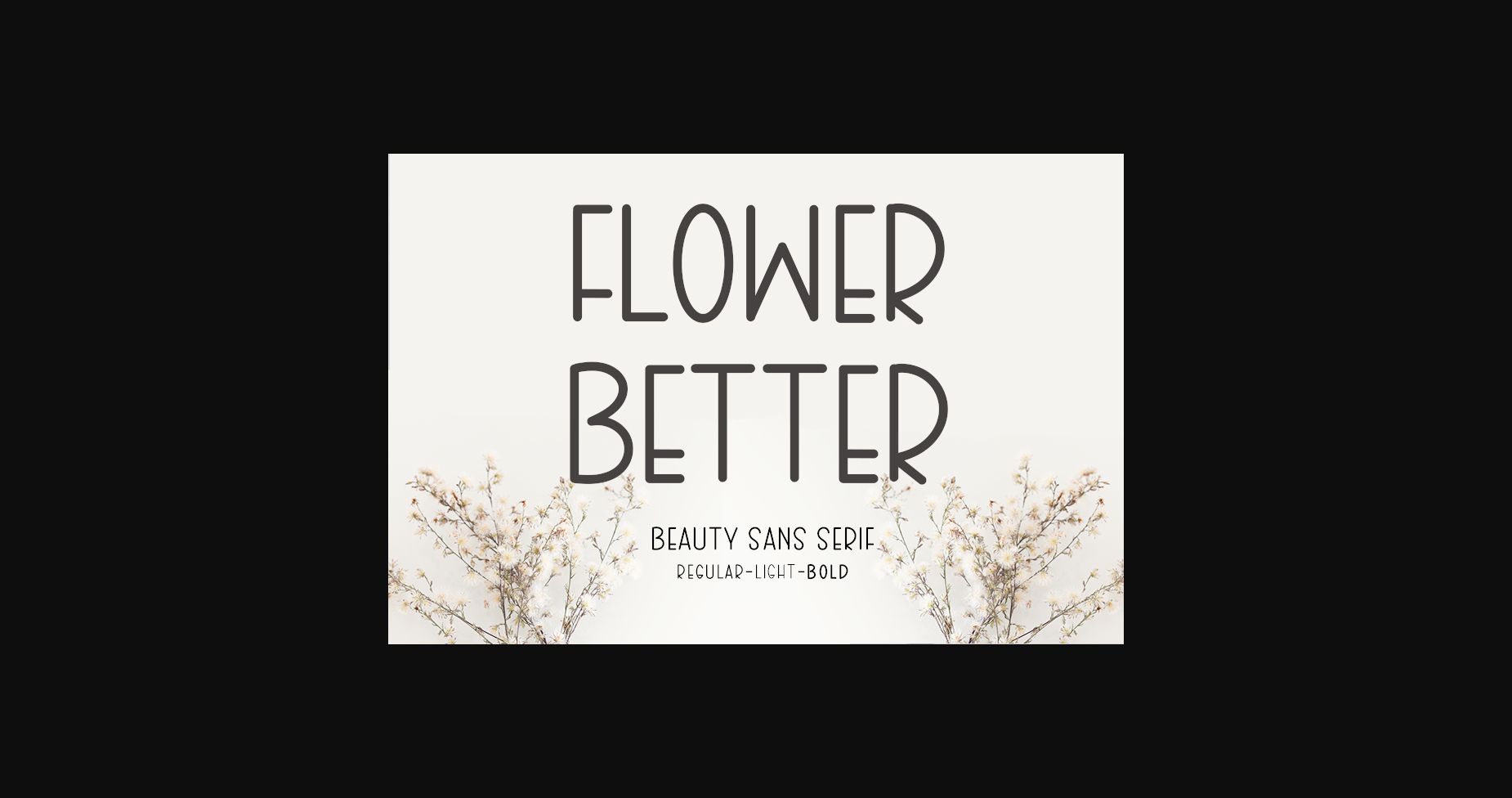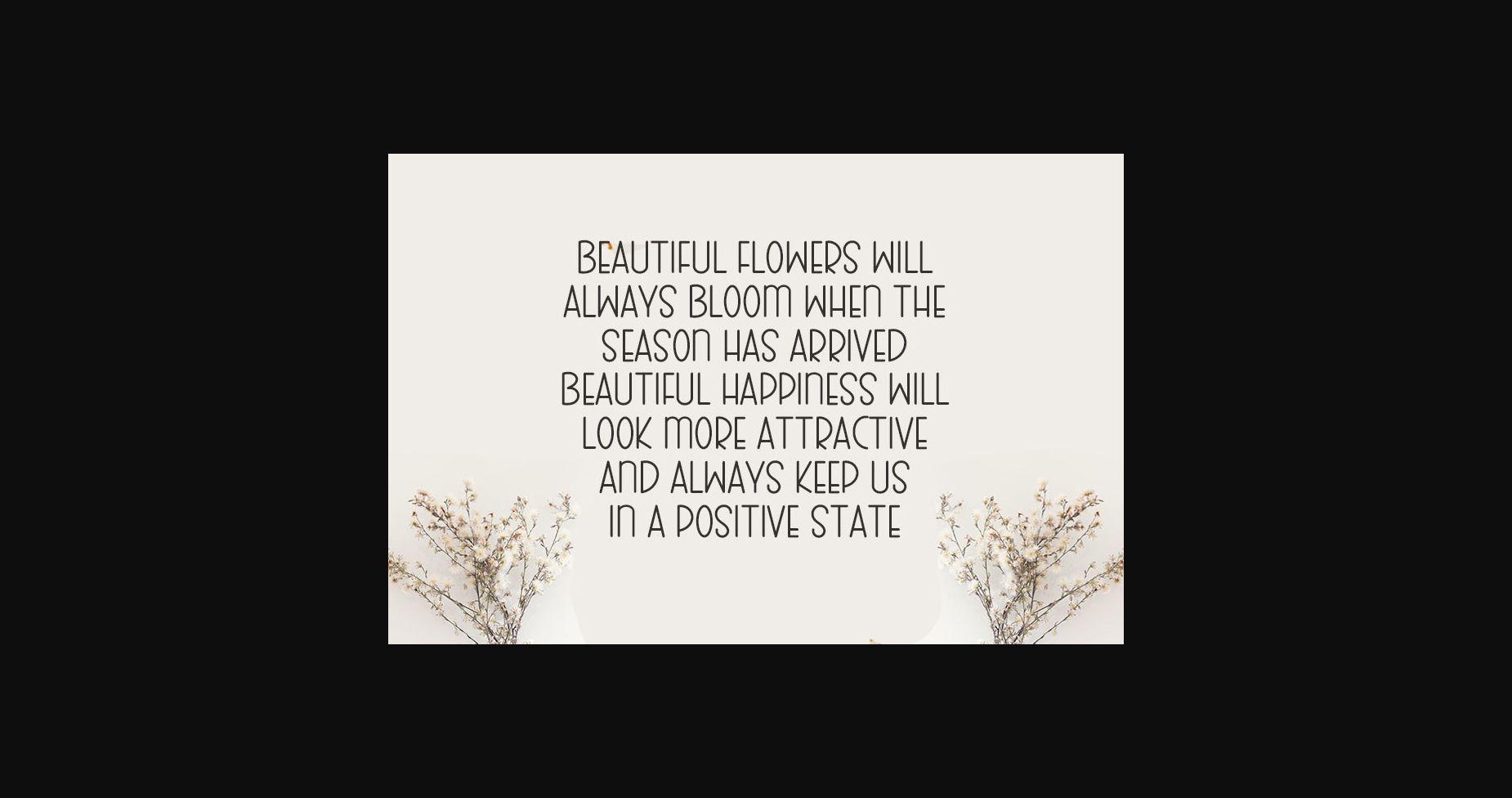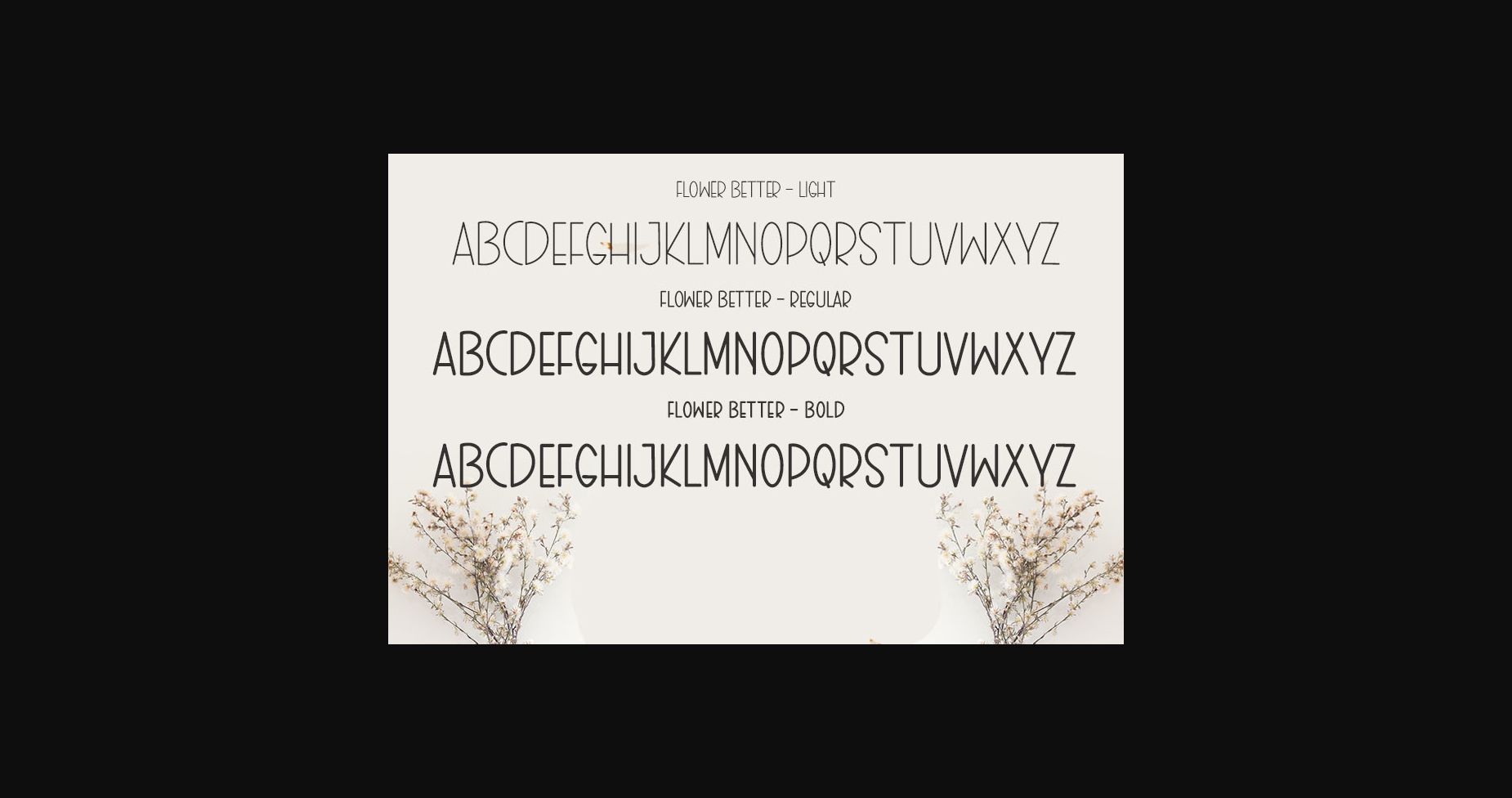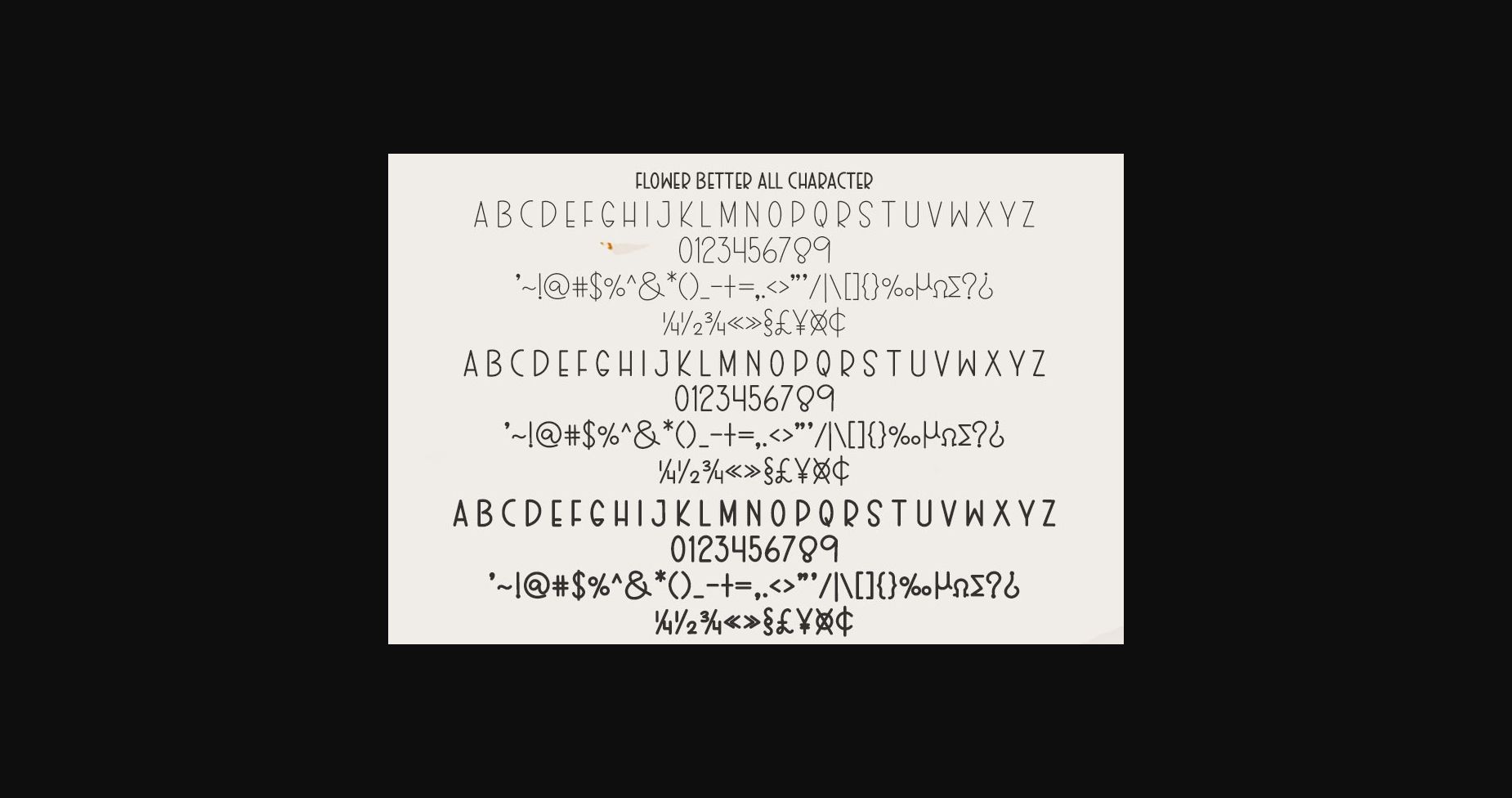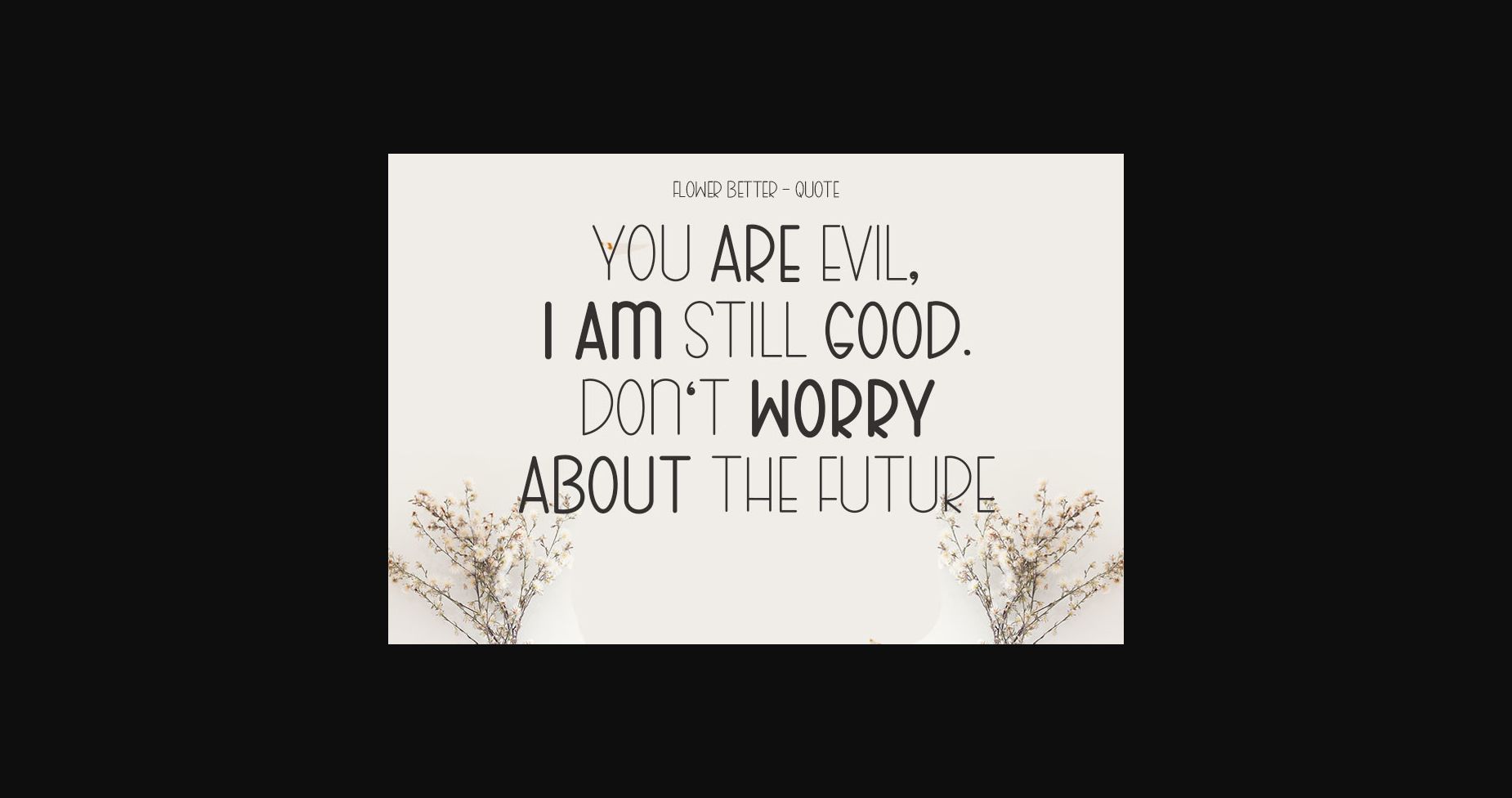
Flower Better Font
About Flower Better Font
Flower better is a lovely sans serif font featuring sleek and charming characters that seem to dance along the baseline. Add it confidently to your projects, and watch how it makes them come alive!